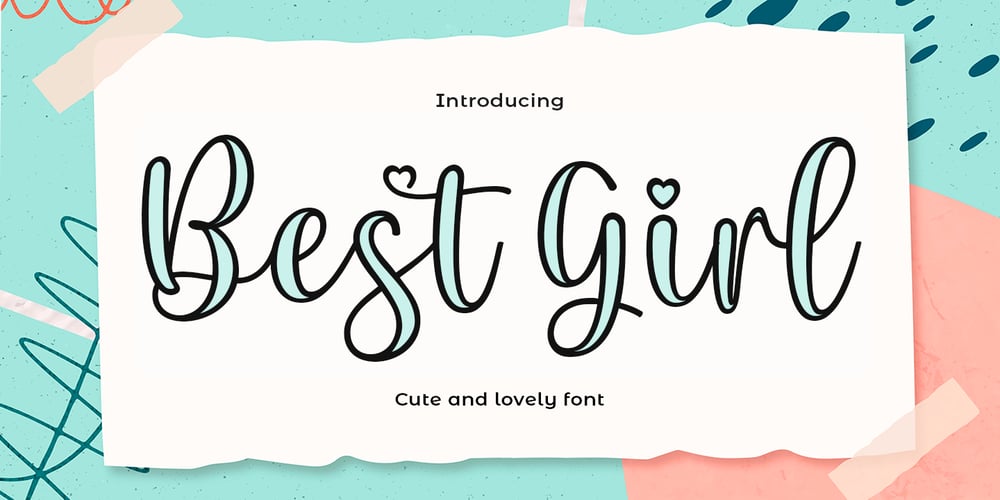
Best Girl Font Family was designed by Muammar Kadafi and published by Attract Studio. Best Girl contains 1 styles and family package options. Best Girl is a Cute and Lovely script font. I designed this font with a mix of outline and modern script styles. it is suitable for display fonts. equipped with alternative letters for beginning and ending. and also “stylistic alternates” which makes this letter very beautiful and attractive.This is suitable for logos, headlight, clothing, branding, quotes, invitations, stationery, wedding design,album covers, business cards, clothing, magazines, posters, and more!Thank you for your purchase!Happy creating!